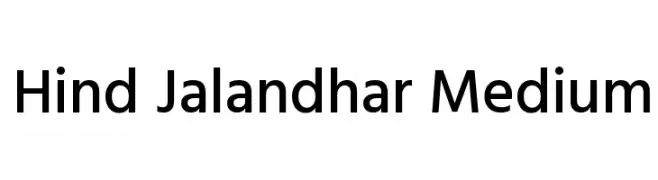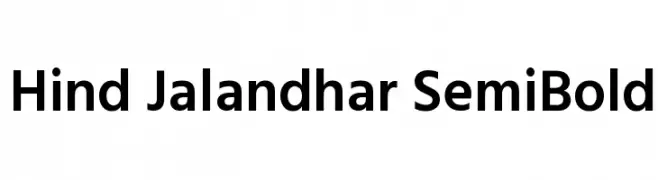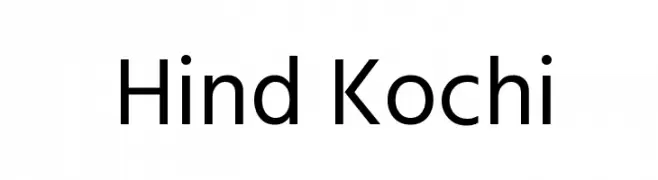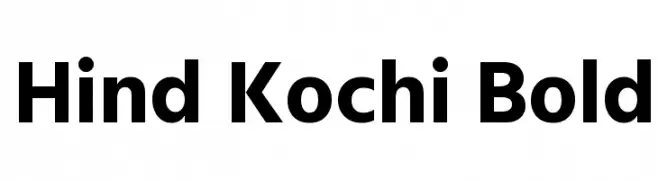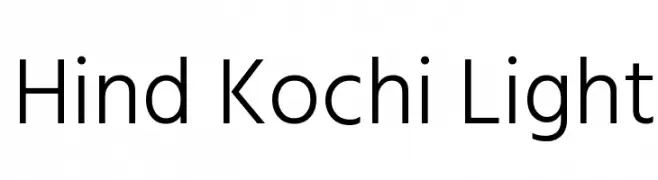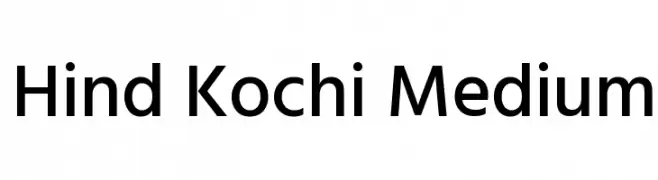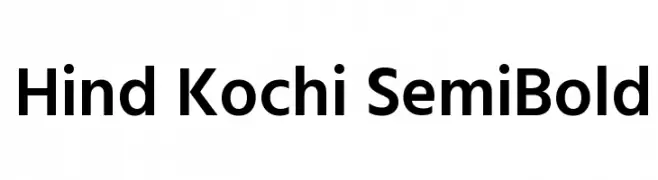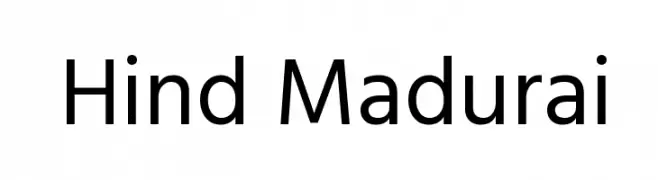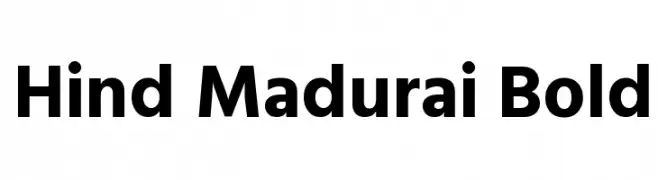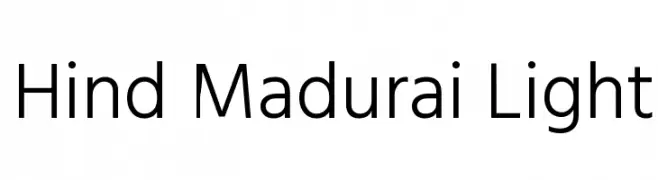
A modern, geometric sans-serif font with clean lines and excellent readability.
A clean, modern sans-serif typeface with medium contrast and rounded edges.
A modern, semi-bold sans-serif typeface with clean lines and excellent readability.
A clean, modern sans-serif typeface with uniform stroke widths and excellent readability.
A bold, modern sans-serif typeface with excellent legibility and versatility.
A clean, modern sans-serif font with a light weight and excellent readability.
A modern, clean sans-serif font with excellent readability.
A modern, semi-bold sans-serif font with geometric shapes and uniform strokes.
A clean, modern sans-serif font with uniform stroke width and excellent readability.
A clean, modern sans-serif font with excellent readability and uniform stroke width.
A bold, modern sans-serif font with clean lines and strong readability.
A clean, modern sans-serif font with uniform geometric letterforms.
A modern, clean sans-serif font with excellent readability and balanced proportions.
A clean, modern sans-serif font with uniform stroke width and high legibility.
A clean, modern sans-serif font with a semi-bold weight and geometric structure.
A clean, modern sans-serif font with medium weight and excellent legibility.
A clean, modern sans-serif font with balanced spacing and consistent stroke width.
A bold, modern sans-serif font with clean lines and uniform spacing.
A modern, light sans-serif font with clean lines and excellent readability.
A clean, modern sans-serif font with geometric letterforms and consistent stroke weight.
A clean, modern sans-serif font with semi-bold weight and excellent readability.
A clean, modern sans-serif font with uniform stroke width and excellent readability.
A clean, modern sans-serif font with semi-bold weight and medium contrast.
A modern, clean sans-serif font with excellent legibility and balance.
A bold, modern sans-serif font with excellent readability and geometric precision.
A clean, modern sans-serif typeface with excellent readability.